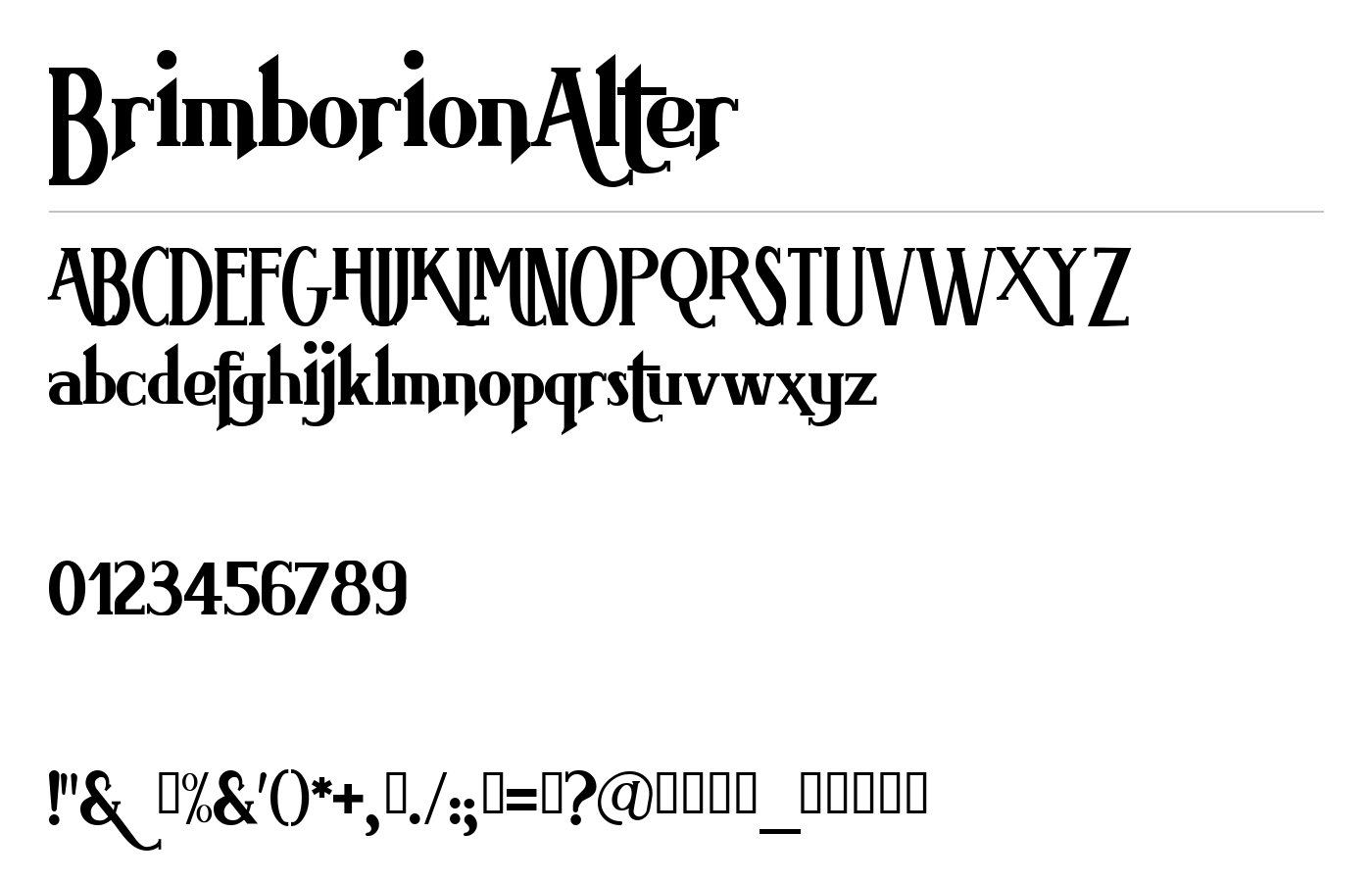
BrimborionAlter is a distinctive serif font with a high contrast between thick and thin strokes, featuring sharp, angular serifs that give it a bold and dramatic flair. Its tall, narrow letterforms and unique, slightly gothic style create an elegant yet striking appearance, perfect for standout headlines and branding that seeks a vintage or artistic vibe. This font works well for fashion, editorial designs, and creative projects that want to combine sophistication with a touch of unconventional charm.
BrimborionAlter Font
About BrimborionAlter Font